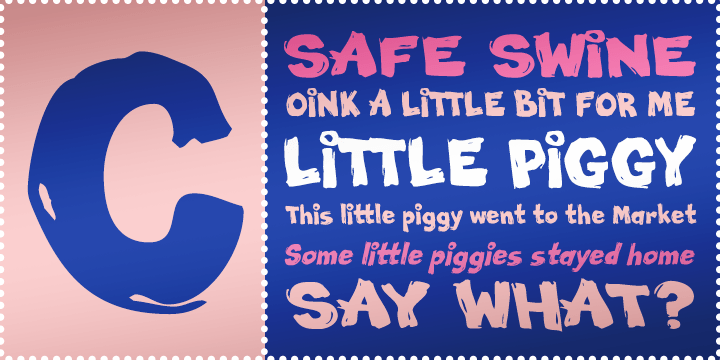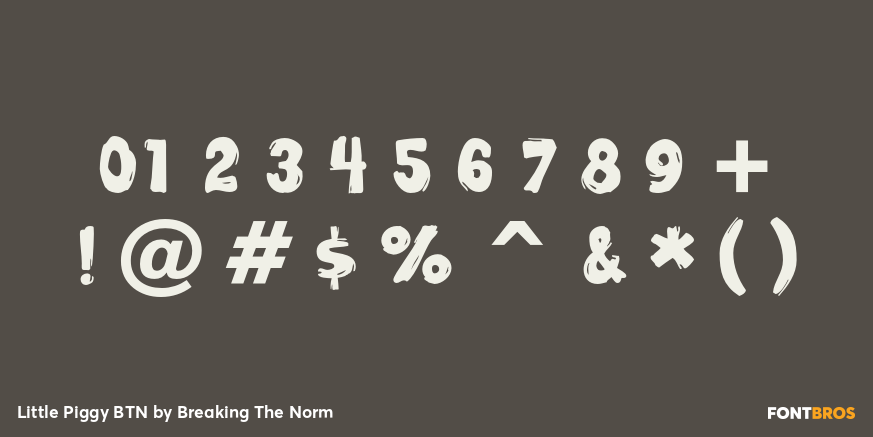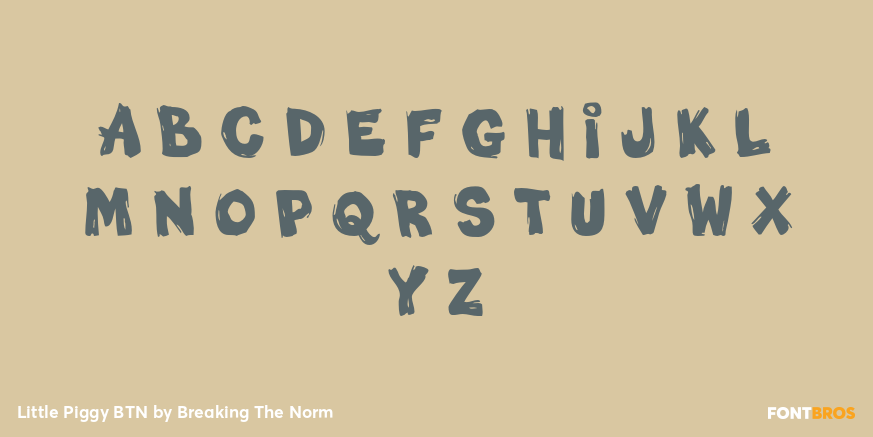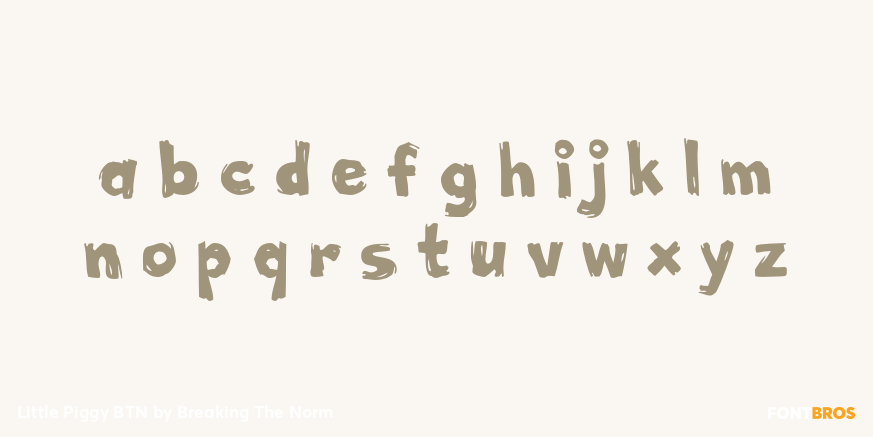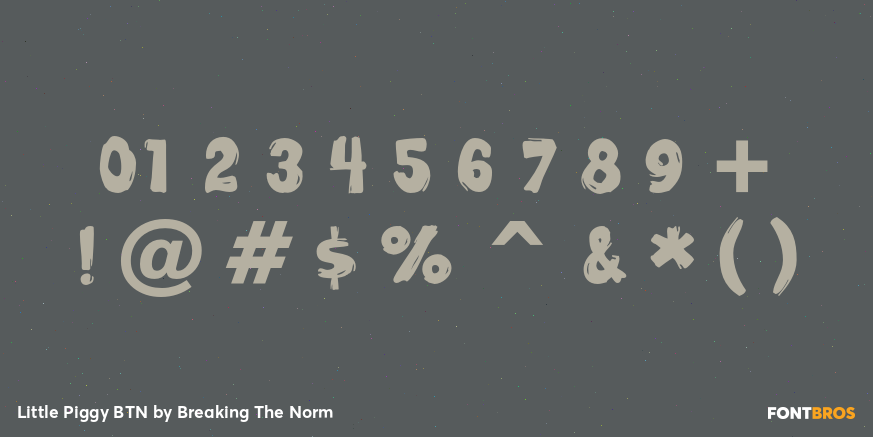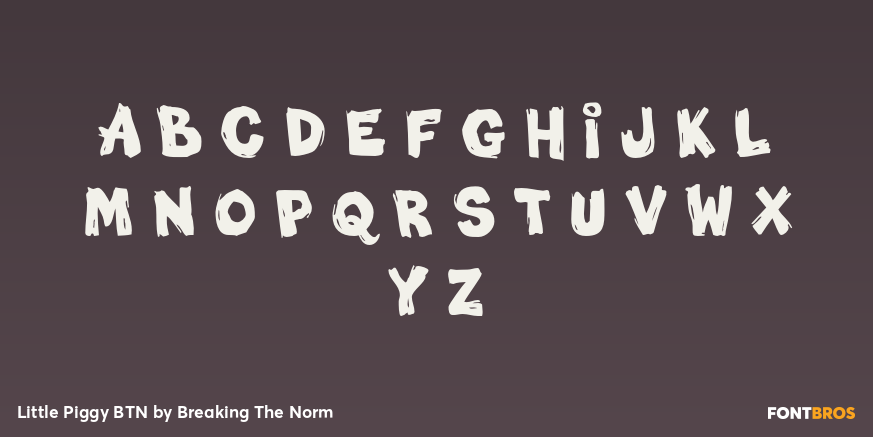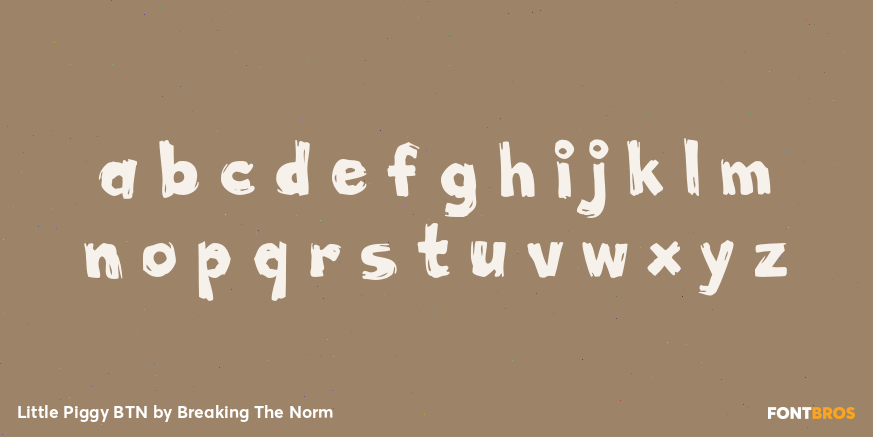
Little Piggy BTN
Font Family by Breaking The Norm
Little Piggy BTN is a bold offbeat display family inspired by the logotype lettering from Tank Girl. It brings a raw, energetic comic-book attitude to the page, combining strong forms with an intentionally quirky edge. The family feels loud, rebellious, and full of personality, making it well suited for posters, album art, branding, packaging, editorial headlines, and alternative-themed design work. With Regular, Oblique, Wide, Wide Oblique, and Wide Backslant styles, Little Piggy BTN offers a dynamic set of options for creating expressive display typography with a gritty pop-culture feel.